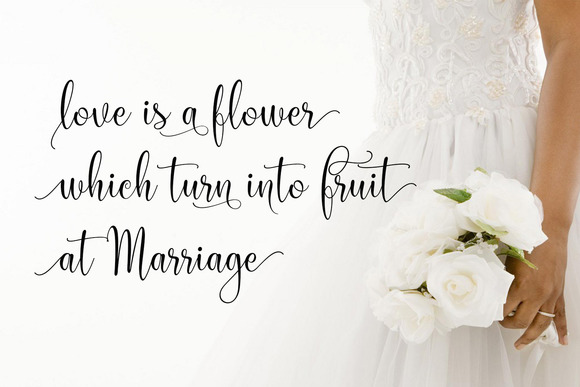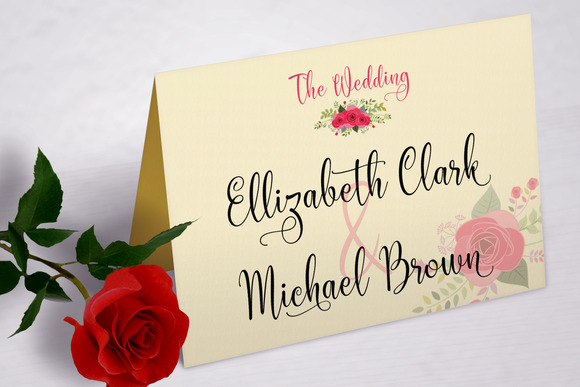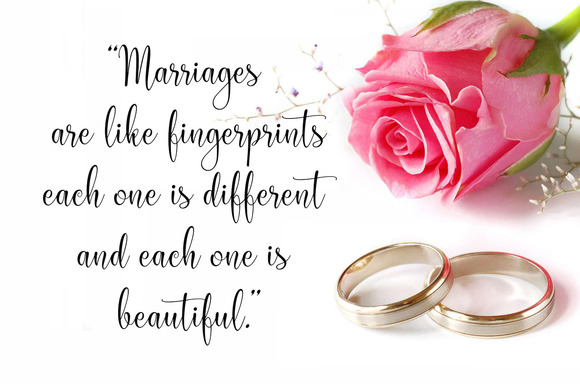
Introduction to Kimberlay Font
Have you ever stared at a blank page, waiting for the perfect font to inspire your creative project? I know I have. It’s that moment when everything clicks, and your design starts to take shape. For designers, finding the right font can be the difference between a good design and a great one.
That’s why I’m excited to introduce you to the Kimberlay Font, a beautiful and elegant handwritten font that’s perfect for adding a touch of class to your designs. With its fine and smooth lines, this font exudes high quality and sophistication, making it an excellent design resource for any project.
Whether you’re working on a logo, a brochure, or a social media graphic, the Kimberlay Font is sure to bring your design to life. And with its transparent background and wide range of characters, you can use it over and over again without getting bored. Let’s take a closer look at this fantastic font and see why it’s a must-have for any designer.
Key Features of Kimberlay Font
- High-quality design resource with a unique and creative style, perfect for various projects.
- Includes a transparent background, allowing for seamless integration into any design project.
- Comes in a single weight, ideal for creating a cohesive and consistent look in your creative project.
- Designed with a high resolution, ensuring crisp and clear text display in various sizes and resolutions.
- Perfect for use in digital designs, including web pages, social media graphics, and print materials.
Honest Review: Kimberlay Font
As a designer, I’m always on the lookout for high-quality design resources to elevate my creative projects. Recently, I stumbled upon the Kimberlay Font, and I must say it’s a lovely addition to my design arsenal.
Here’s what works well for me:
- ✨ Elegant and modern design aesthetic that adds a touch of sophistication to any project
- ✨ High-quality vector graphics that scale well for various use cases
- ✨ Transparent background, making it easy to combine with other design elements
However, I do have a few caveats:
- ⚠️ Limited character set, which might not be suitable for projects requiring a wide range of characters
- ⚠️ Not ideal for projects requiring bold or italic font styles
Overall, I’m quite impressed with the Kimberlay Font. It’s a great design resource for projects where a modern, elegant font is required. While it has its limitations, it’s a solid addition to any designer’s toolkit. Plus, the fact that it’s available for free download is a definite bonus.
Kimberlay Font Overview
The Kimberlay Font is a high-quality design resource ideal for various creative projects. Its transparent background makes it perfect for overlaying on images or videos.
Tips for Getting the Most Out of Kimberlay Font
Use the Kimberlay Font in combination with other design elements to create visually appealing designs. Experiment with different font sizes, colors, and styles to achieve the desired effect.
Common Use Cases for Kimberlay Font
The Kimberlay Font is ideal for a variety of creative projects, including logos, brochures, social media graphics, and presentations.
Q: Can I customize the Kimberlay Font for my specific design project?
While the Kimberlay Font is a high-quality design resource, it’s not intended for extensive customization. However, you can experiment with font styles, sizes, and colors to create a unique look for your project. Keep in mind that significant modifications may affect the font’s overall aesthetic and legibility.